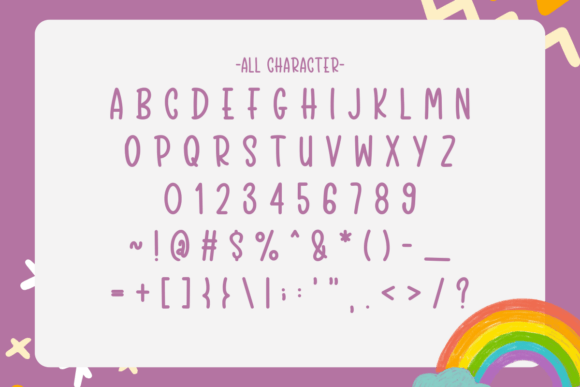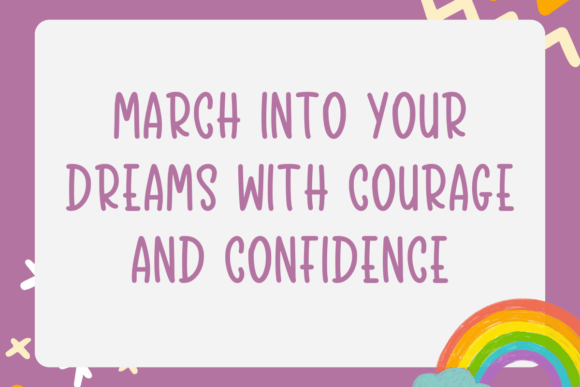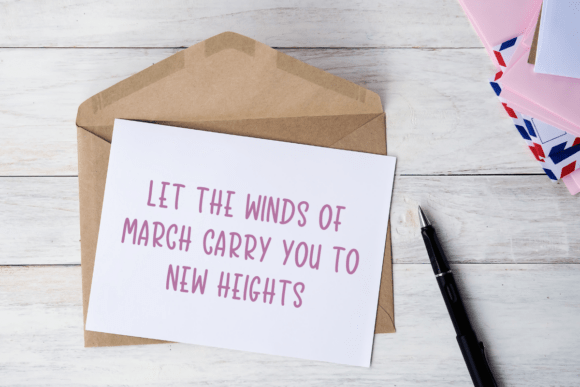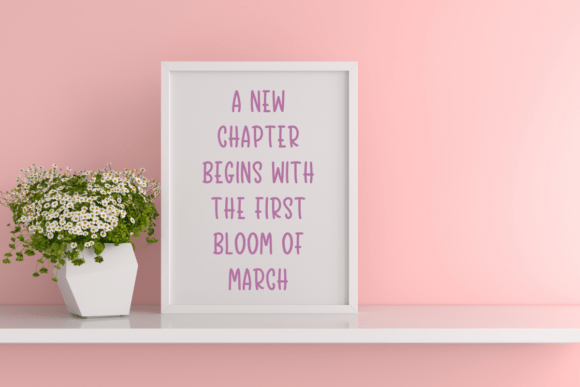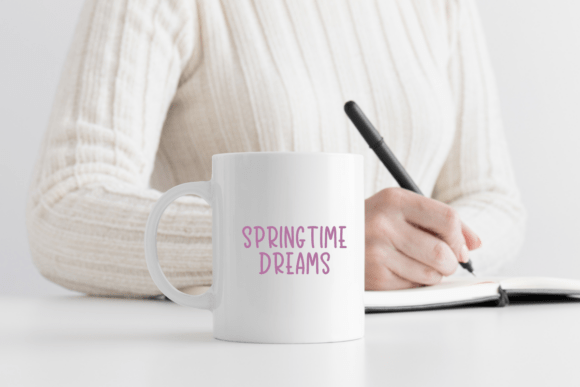
Introduction to March Dream Font
As you sit at your craft table, surrounded by colorful supplies and endless possibilities, the creative juices start flowing. You envision a beautiful project, one that combines your love of design and making things with a touch of whimsy and personality. And then, you stumble upon the perfect font to bring it all together – the March Dream Font.
This delightful handwritten font is more than just a design resource; it’s a game-changer for crafters, designers, and makers alike. With its high-quality, transparent background, it’s perfect for Cricut, sublimation, and other creative projects. And the best part? It’s available for free download, making it an invaluable addition to any design arsenal.
Whether you’re working on a new planner design, creating stickers for a special occasion, or crafting greeting cards for loved ones, the March Dream Font is the perfect companion to bring your vision to life.
Key Features of March Dream Font
- High-quality design: March Dream Font is a premium, high-quality design resource ideal for creative projects.
- Transparent background: This font features a transparent background, making it easy to use in various design applications.
- High-resolution design: March Dream Font is designed at a high resolution (300 DPI), ensuring crisp and clear text in various sizes.
- Unique, hand-drawn style: This font features a unique, hand-drawn style that sets it apart from other fonts in its category.
- Perfect for creative projects: March Dream Font is ideal for use in creative projects, including logos, branding, and typography-based designs.
Honest Review: March Dream Font
As a designer, I’m always on the lookout for high-quality design resources to elevate my creative projects. The March Dream Font is one such find that has caught my attention. I was impressed by its modern and elegant feel, making it perfect for a wide range of design applications.
What works well with the March Dream Font is its versatility. It comes in a range of weights and styles, allowing me to experiment with different typography options for my design projects. Additionally, the transparent background feature makes it easy to overlay text on images or other design elements. ✨ The free download option is also a huge plus, as it’s always great to have access to free design resources.
- Multiple weights and styles to choose from
- Transparent background feature for easy overlay
While the March Dream Font is a great addition to my design arsenal, I do have some limitations to mention. The font is not as extensive as some other popular fonts, and the character set is limited. ⚠️ This may be a concern for designers who require a wide range of characters for their projects.
Overall, I’m impressed with the March Dream Font. Its high-quality design and versatility make it a great resource for designers looking to elevate their creative projects. While it may have some limitations, I believe it’s a valuable addition to any design resource library.
Transparent Background and Customization
The March Dream Font comes with a transparent background, allowing for seamless integration with your design. Experiment with different font sizes, colors, and styles to get the most out of this versatile design resource.
March Dream Font is ideal for creating eye-catching graphics, social media posts, and presentations. Use it to add a touch of elegance and sophistication to your design projects.
Tips for Getting the Most Out of March Dream Font
To maximize the effectiveness of March Dream Font, experiment with layering, blending, and combining it with other design elements. This will help you create unique and captivating designs that stand out.
Q: Does the March Dream Font have a transparent background?
Yes, the March Dream Font has a transparent background, making it ideal for use in design projects that require a clean and minimalist look. This feature also allows for easy integration with other design elements and backgrounds.